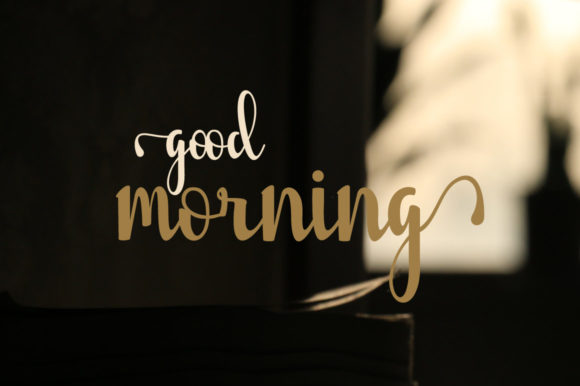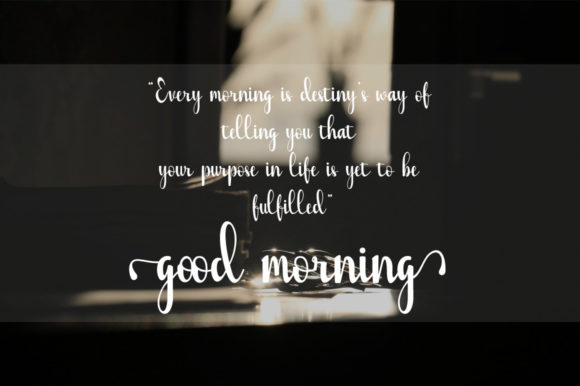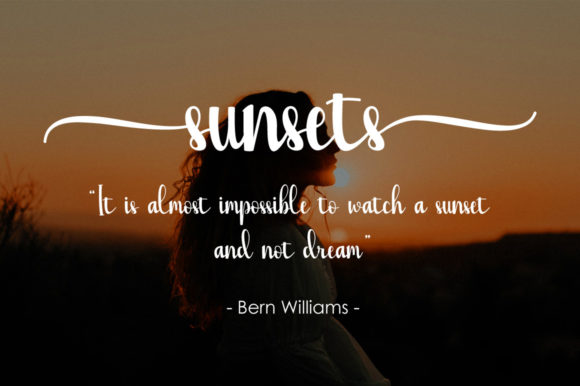
Introduction to Etweego Font
Imagine you’re brainstorming ideas for a new branding project, and you stumble upon the perfect handwritten style that captures the essence of your client’s personality. For many designers, this moment is the spark that sets their creative project ablaze. One such font that can ignite this spark is the Etweego Font – a delicate and elegant handwritten masterpiece that is sure to elevate any design.
With its distinct and well-balanced letters, the Etweego Font is a valuable resource for designers seeking to add a touch of sophistication to their work. Whether you’re working on a logo, business card, or website, this font’s unique charm can make all the difference. Plus, its PUA encoding allows for seamless access to all glyphs and swashes, making it a breeze to customize and experiment with different design elements.
Key Features of Etweego Font
- High-quality, professional design for various creative projects, making it a valuable design resource.
- Unique, modern design with a transparent background, allowing for flexibility and customization in your creative project.
- Perfect for use in logos, branding materials, and other design elements where a clean and modern font is required.
Honest Review: Etweego Font
What works well: ✨ The Etweego Font is incredibly versatile, with a range of styles that can be used for both digital and print projects. The transparent background is also a plus, allowing for seamless integration with any design element.
- ✨ High-quality font with a wide range of styles
However, there are a few limitations to keep in mind: ⚠️ The font may not be suitable for very small text sizes, and the character set could be more extensive. Additionally, the font may not be optimized for certain operating systems.
Overall, I’m impressed with the Etweego Font. While it may have some limitations, its versatility and high quality make it a valuable addition to any designer’s toolkit.
When using Etweego Font, remember to use a transparent background to achieve a clean and professional look. You can also experiment with different font sizes and colors to add depth and visual interest to your design.
Common Use Cases for Etweego Font
Etweego Font is perfect for creative projects such as infographics, social media graphics, and presentations. Its high-quality design makes it an ideal choice for business and marketing materials, such as brochures and flyers.